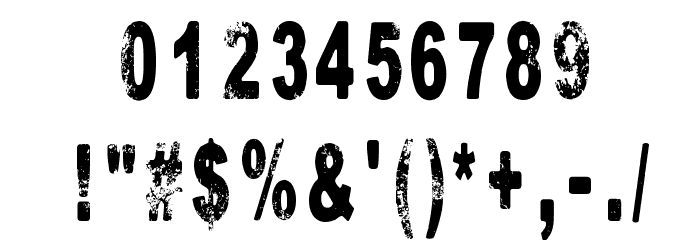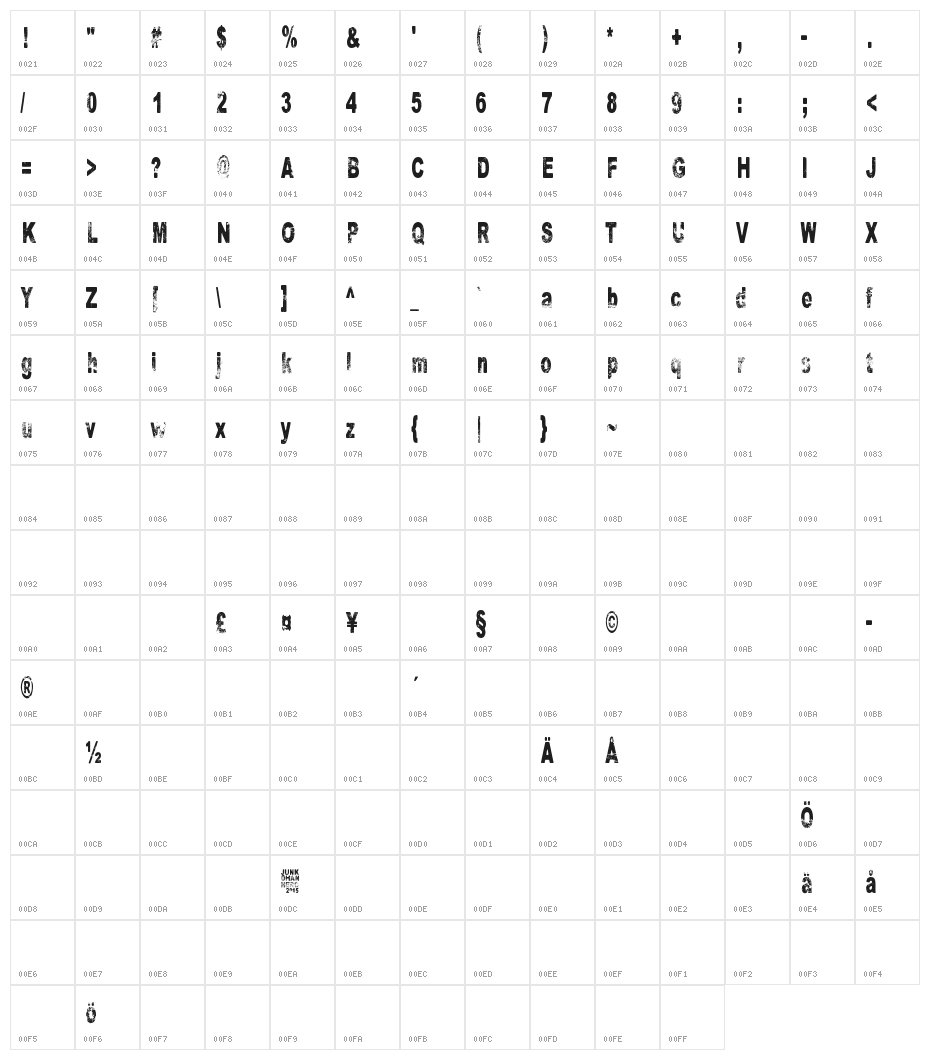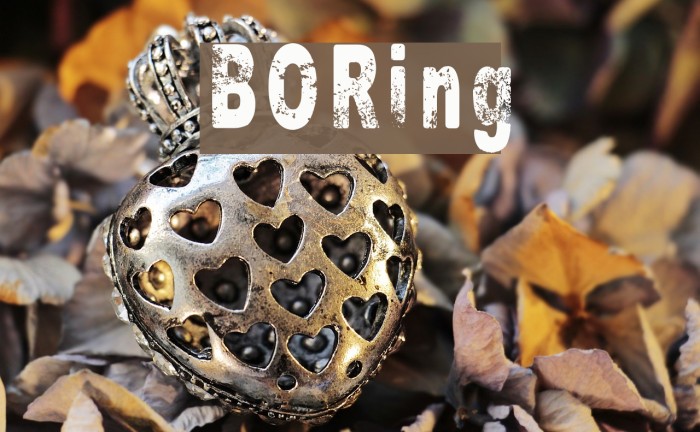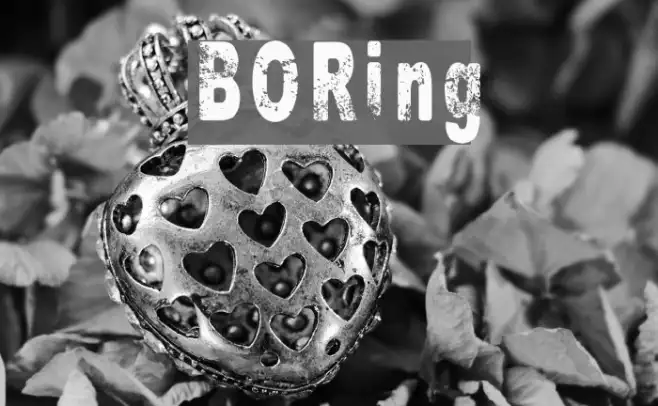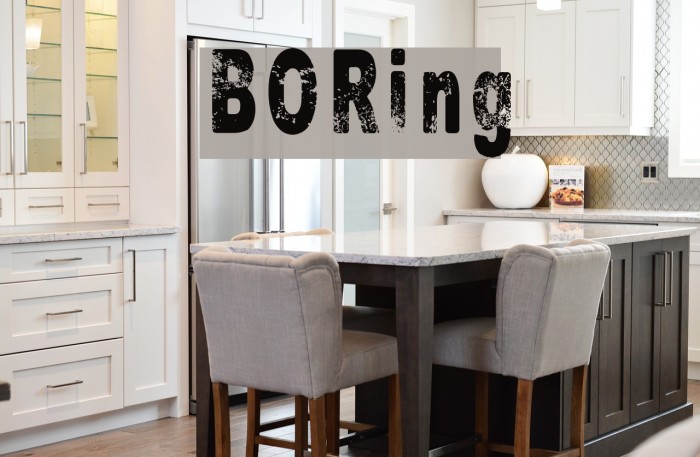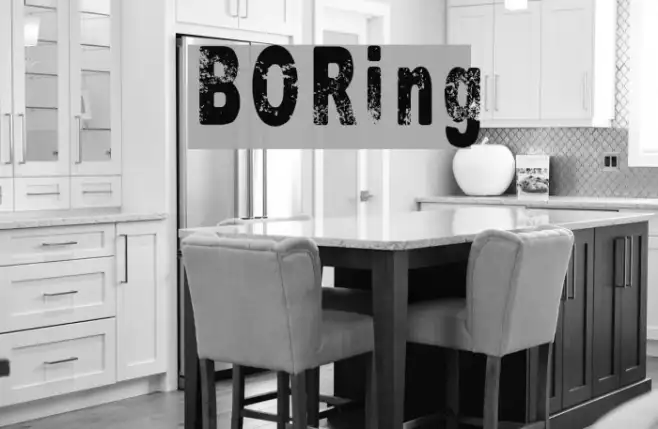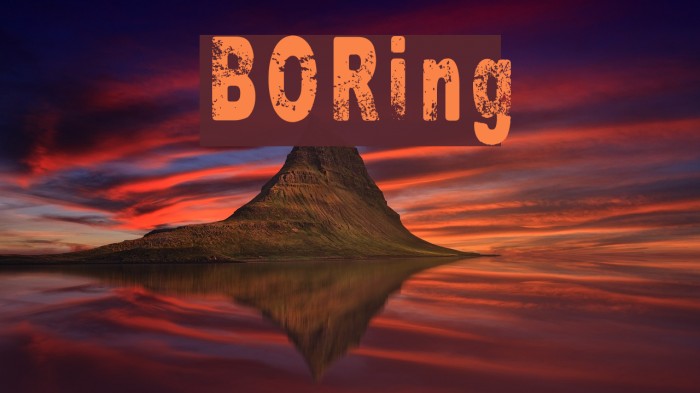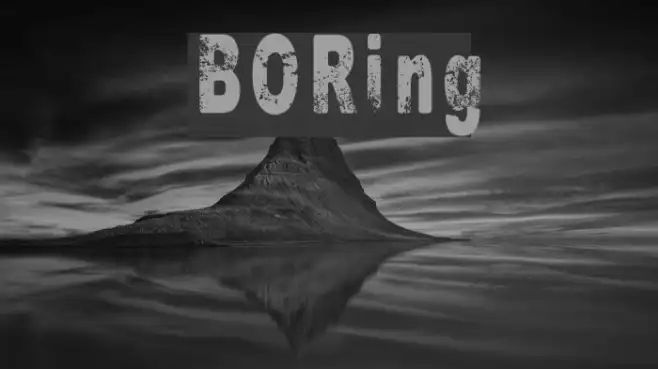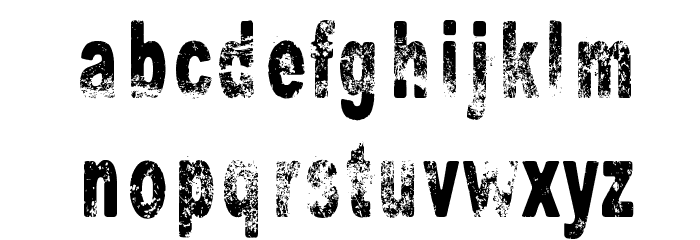
BORing Font
BORing Description
This font features a bold, distressed style with a textured, grunge effect that gives it a rugged and worn appearance. The uppercase and lowercase letters maintain a consistent weight, while the numbers and special characters follow the same distressed aesthetic. The texture varies across characters, adding a unique, handcrafted feel. This font is ideal for projects that require a bold statement with an edgy, vintage vibe. Its rough edges and irregularities make it stand out, perfect for designs that aim to capture attention and convey a sense of authenticity.
| Proposed Projects | Ideal for posters, album covers, branding for edgy products, and any design needing a vintage or rugged look. |